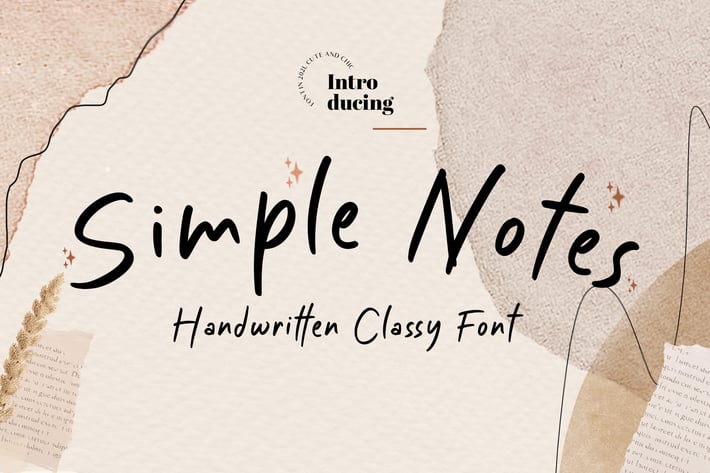
Simple Notes Business Instagram Font
Simple Notes is a thin, delicate and luxurious script font for social media, specially for instagram. Fall in love with this stylish font and use it to create gorgeous wedding invitations, beautiful stationary art, eye-catching social media posts, and much more!